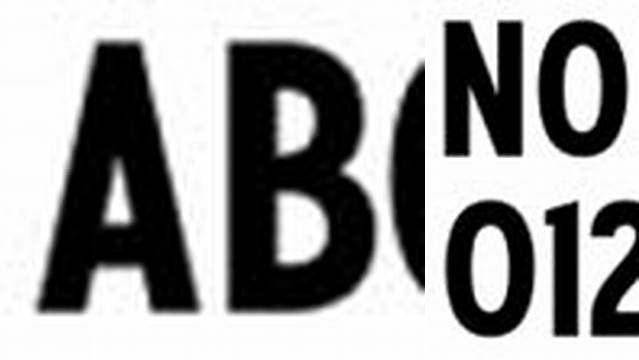
Hey guys! Are you on the hunt for that perfect font to make your designs pop? Look no further! Rhea Bold Font is here to save the day. This font is a fantastic choice for anyone looking to add a touch of elegance and strength to their projects. Whether you're designing a logo, creating marketing materials, or just sprucing up your personal blog, Rhea Bold Font can deliver the impact you need. In this guide, we'll dive deep into everything you need to know about downloading and using this awesome font. So, let's get started!
1. What Makes Rhea Bold Font Special?
So, what exactly makes Rhea Bold Font stand out from the crowd? Well, for starters, it's the perfect blend of sophistication and boldness. Rhea Bold Font has a strong presence that commands attention, while still maintaining a clean and modern look. This makes it incredibly versatile for a wide range of applications. Think about how it can elevate your website headers, grab eyeballs on your posters, or give your branding a powerful edge. The unique character shapes and balanced weight distribution of Rhea Bold Font create a visual harmony that's both pleasing to the eye and highly readable. Plus, the availability of Rhea Bold Font for free download makes it an accessible option for designers of all levels, from seasoned pros to enthusiastic beginners. Let’s explore more about why this font should be in your design toolkit.
6. Using Rhea Bold Font in Graphic Design
Rhea Bold Font is a fantastic asset for any graphic designer. Its strong, clean lines make it perfect for a variety of projects. Think about using Rhea Bold Font in logos to convey stability and confidence, or in posters and flyers to grab attention with bold headlines. Because of its legibility, Rhea Bold Font also works well in body text, ensuring your message is easily readable. Experiment with different sizes and weights to see how Rhea Bold Font can adapt to your specific design needs. Whether you're working on a sleek, modern design or something more traditional, Rhea Bold Font can add a touch of sophistication. Consider pairing it with a lighter, sans-serif font for contrast, or using it alone for a powerful, consistent look. Let’s look at some specific scenarios where Rhea Bold Font shines.
7. Designing Logos with Rhea Bold Font
When it comes to logo design, choosing the right font is crucial, and Rhea Bold Font can be an excellent choice. A logo is the face of a brand, so you need a font that communicates the right message. The boldness of Rhea Bold Font conveys strength, confidence, and reliability—qualities that many businesses want to project. Its clean lines ensure that your logo will look crisp and professional, whether it’s printed on a business card or displayed on a website. Think about how the weight of Rhea Bold Font can make your brand name stand out, and how its readability ensures that your logo remains clear even at smaller sizes. Experiment with different letter combinations and kerning to create a unique and memorable mark. Plus, the versatility of Rhea Bold Font means it can work for a wide range of industries, from tech startups to established corporations. Let's explore how it can also be used in branding materials.
8. Branding with Rhea Bold Font
Consistent branding is key to creating a strong identity, and Rhea Bold Font can play a significant role in achieving that. Using the same font across all your branding materials—from your website to your social media graphics to your business cards—creates a cohesive and professional image. The boldness of Rhea Bold Font can help your brand stand out in a crowded marketplace, while its readability ensures that your message is always clear. Consider using Rhea Bold Font for headlines and subheadings on your website, as well as in your marketing materials, such as brochures and flyers. Its strong presence will help draw attention to key information and reinforce your brand's message. Don't forget to think about color palettes and imagery that complement Rhea Bold Font to create a unified brand aesthetic. Next, we'll see how Rhea Bold Font can elevate your website design.
9. Enhancing Website Design with Rhea Bold Font
Your website is often the first impression potential customers have of your brand, so it's essential to make it count. Rhea Bold Font can significantly enhance your website design by providing a strong visual anchor. Use Rhea Bold Font for headings and navigation menus to create a clear hierarchy and guide visitors through your site. The font's readability ensures that your content is easily accessible, which is crucial for user experience. Consider using Rhea Bold Font in hero sections to make a bold statement and capture attention immediately. Pair it with a complementary font for body text to create visual interest while maintaining legibility. Remember, a well-chosen font can improve the overall aesthetic of your site, making it more engaging and professional. Let's dive into using Rhea Bold Font for print materials as well.